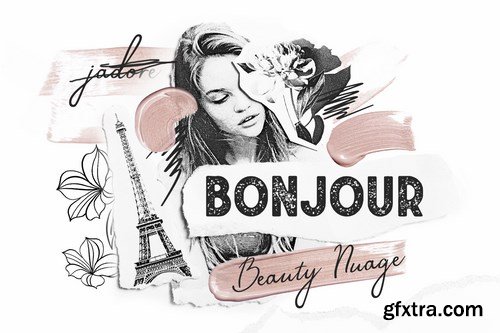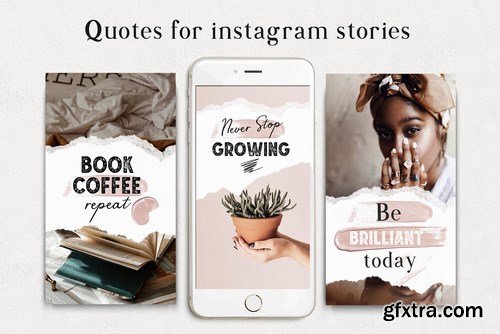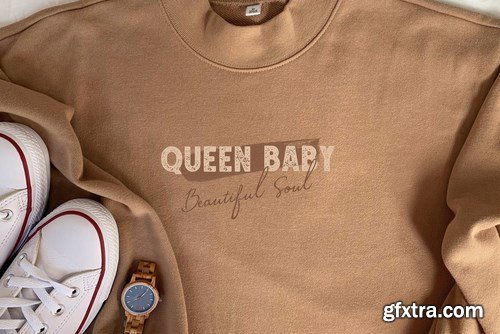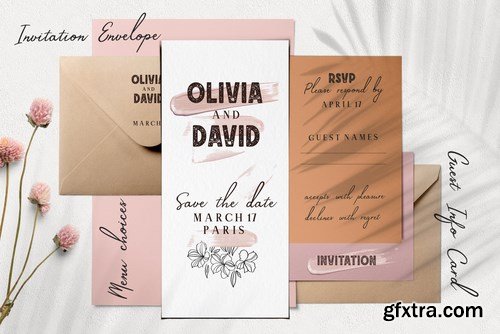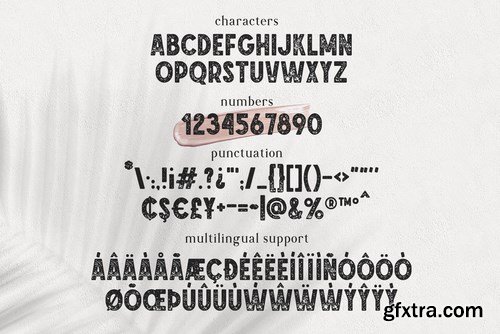
CM - Bonjour Sans Serif Font 4331700
BONJOUR - a regular sans serif font with grunge style. Includes uppercase and lowercase letters, punctuation, numbers, multilingual support.